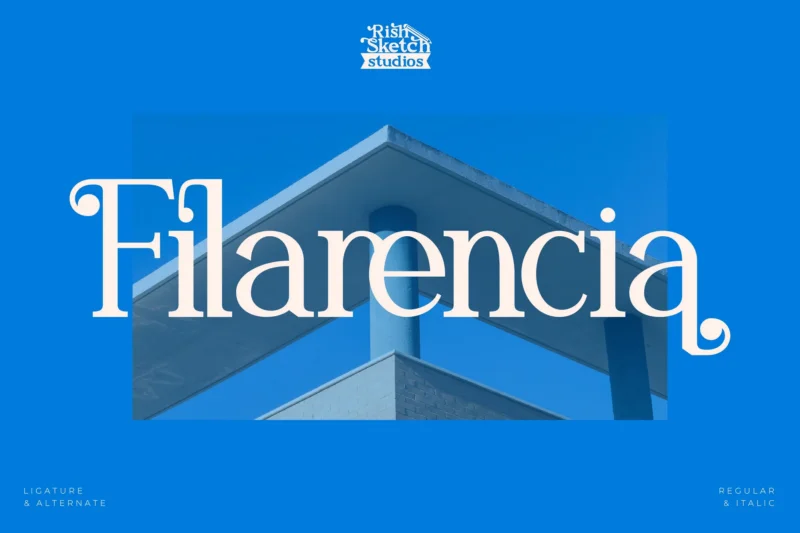
Filarencia
Filarencia – Modern Serif Font, from Rishsketch Studios, is a premium Modern Serif Font, perfect for any project that requires a distinctive, and premium feel.
Ligature, Alternate & Multilingual